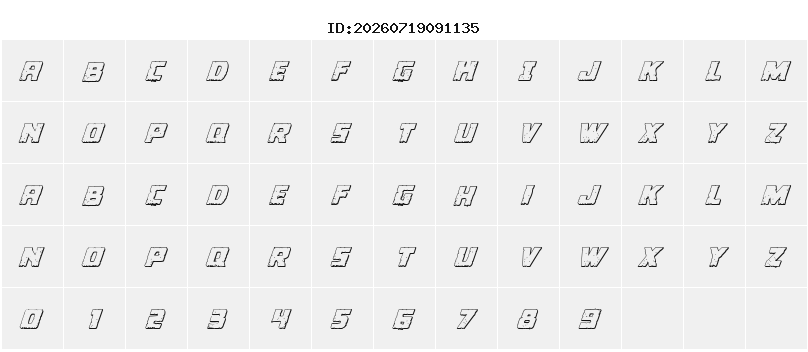
About Colossus 3D Italic.ttf
Colossus 3D Italic.ttf is a modern, elegant sans-serif font designed for ultimate readability and visual harmony. Perfect for branding, headlines, web design, and print materials.